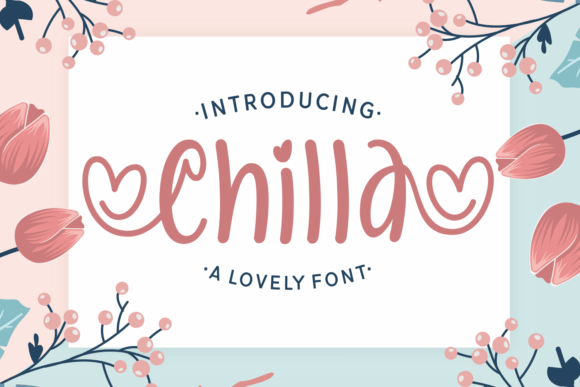
Chilla (by Dani) is a gorgeous script font with an incredibly playful vibe. Its modern and classy look is perfect for logos, branding, invitations, social media posts and every other design that needs that special handwritten touch. It’s free for the next 5 days at Creative Fabrica so be sure to check it out.